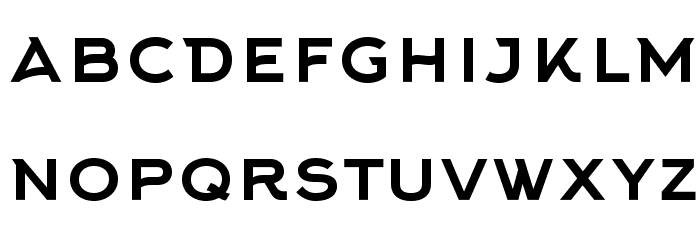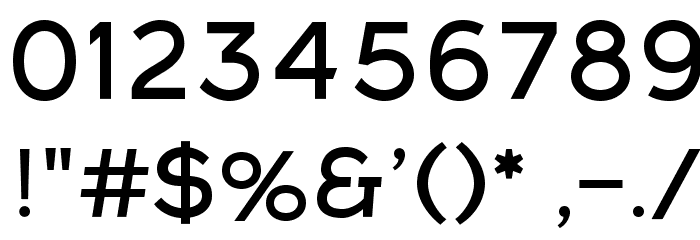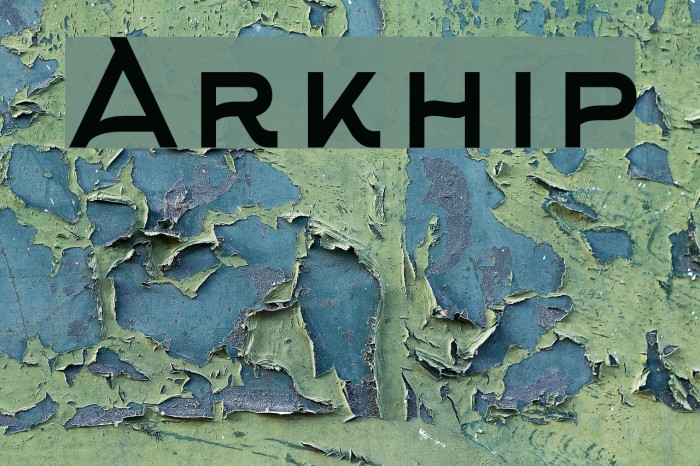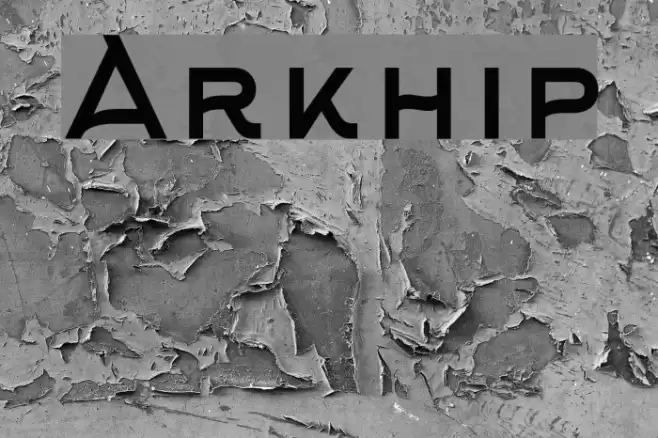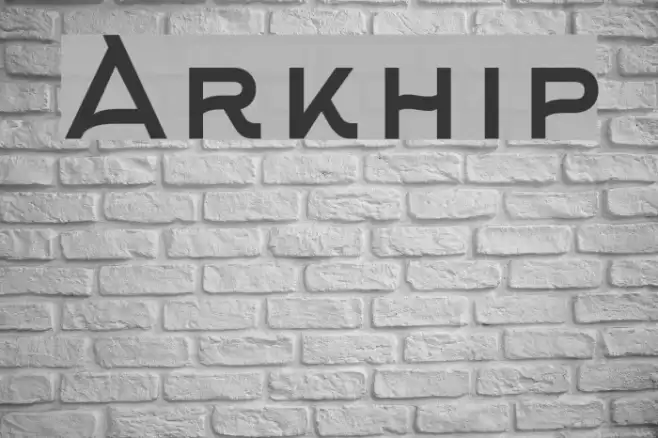
Arkhip Font
This font features a clean and modern sans-serif design with a geometric structure. The characters are bold and have a consistent stroke width, providing a strong visual impact. The uppercase and lowercase letters maintain a uniform appearance, with rounded edges that soften the overall look. The numerals are clear and easily readable, making them suitable for various applications. Special characters are well-defined, adding to the font's versatility. The overall design is sleek and contemporary, making it ideal for projects that require a modern aesthetic.
A modern, bold sans-serif font with a geometric and clean design.
- Proposed Projects: Ideal for branding, advertising, web design, and editorial layouts.
- Use Case: Headlines, Logos, Branding